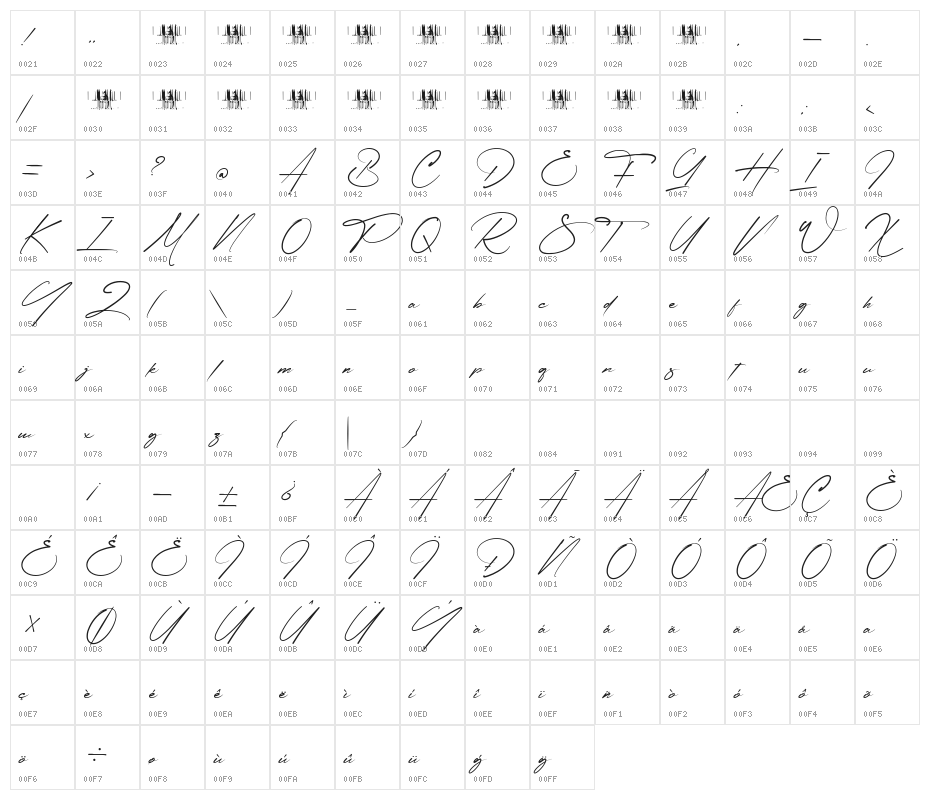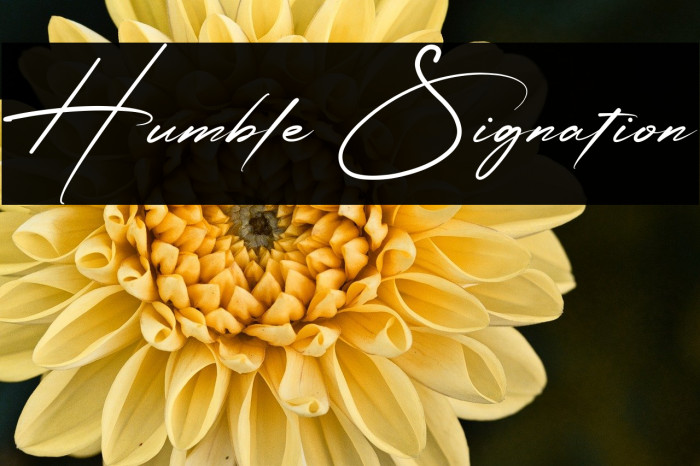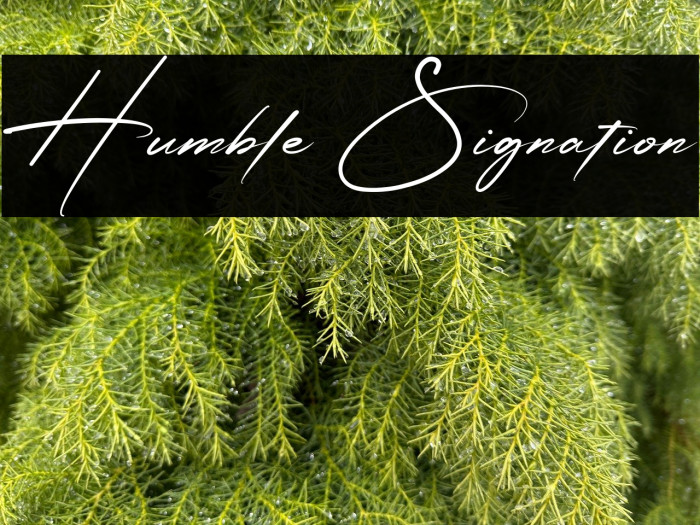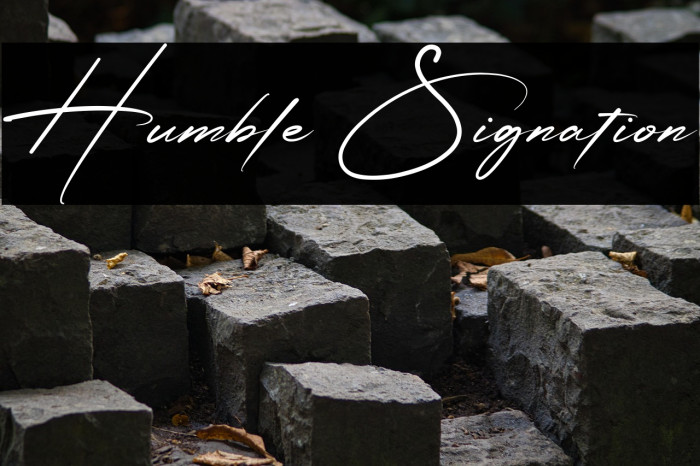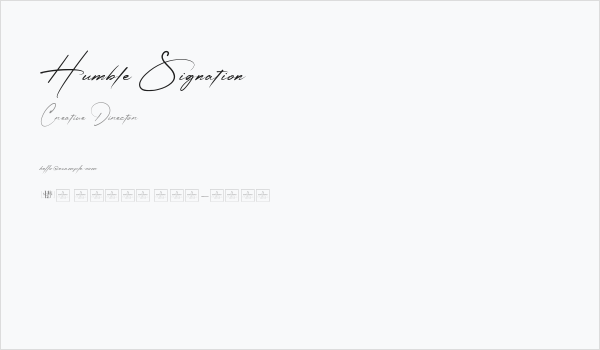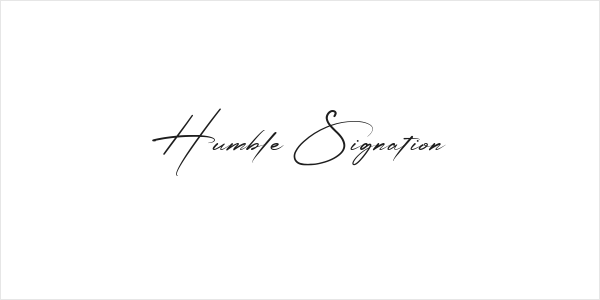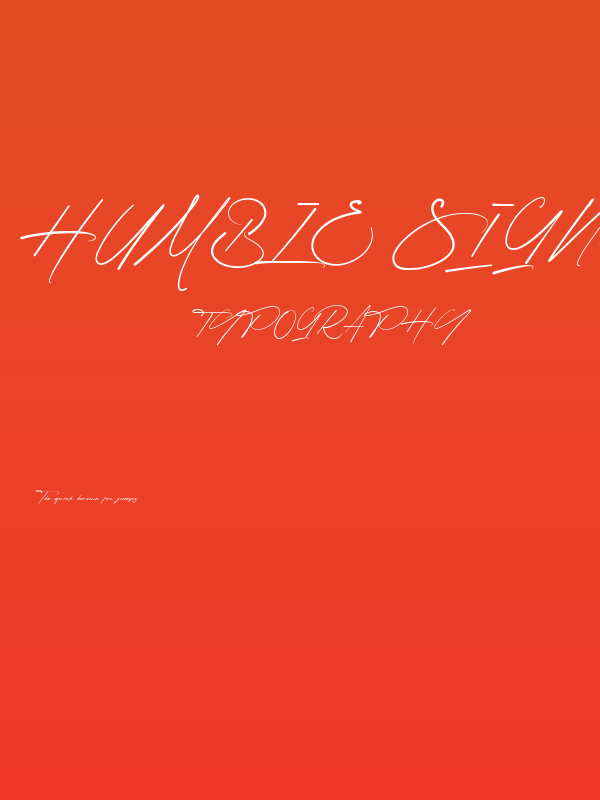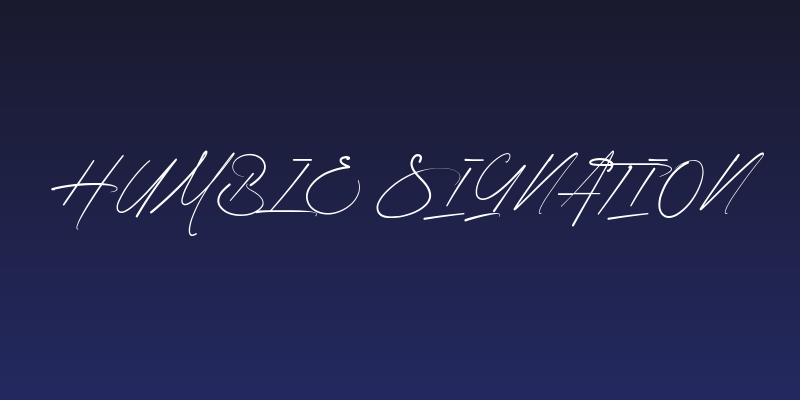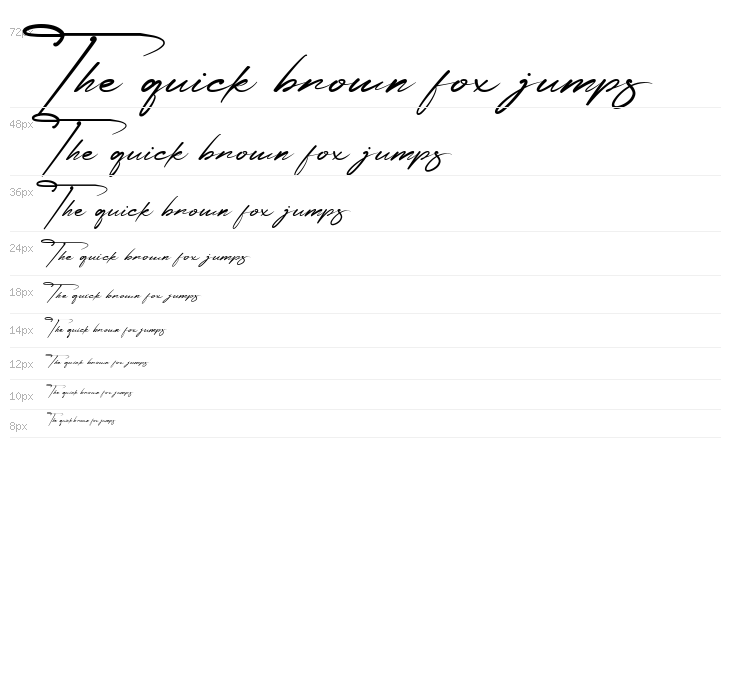
Humble Signation Font
Humble Signation Description
This elegant script font features flowing, interconnected letters that mimic the fluidity of cursive handwriting. The characters are gracefully elongated with a slight slant, giving it a sophisticated and stylish appearance. The uppercase letters are particularly ornate, with sweeping curves and loops that add a touch of flair. The lowercase letters maintain a consistent style, complementing the uppercase with their smooth and continuous strokes. The font's overall design is both delicate and expressive, making it ideal for projects that require a personal or artistic touch.
| Proposed Projects | Ideal for wedding invitations, greeting cards, personal branding, and artistic projects. |